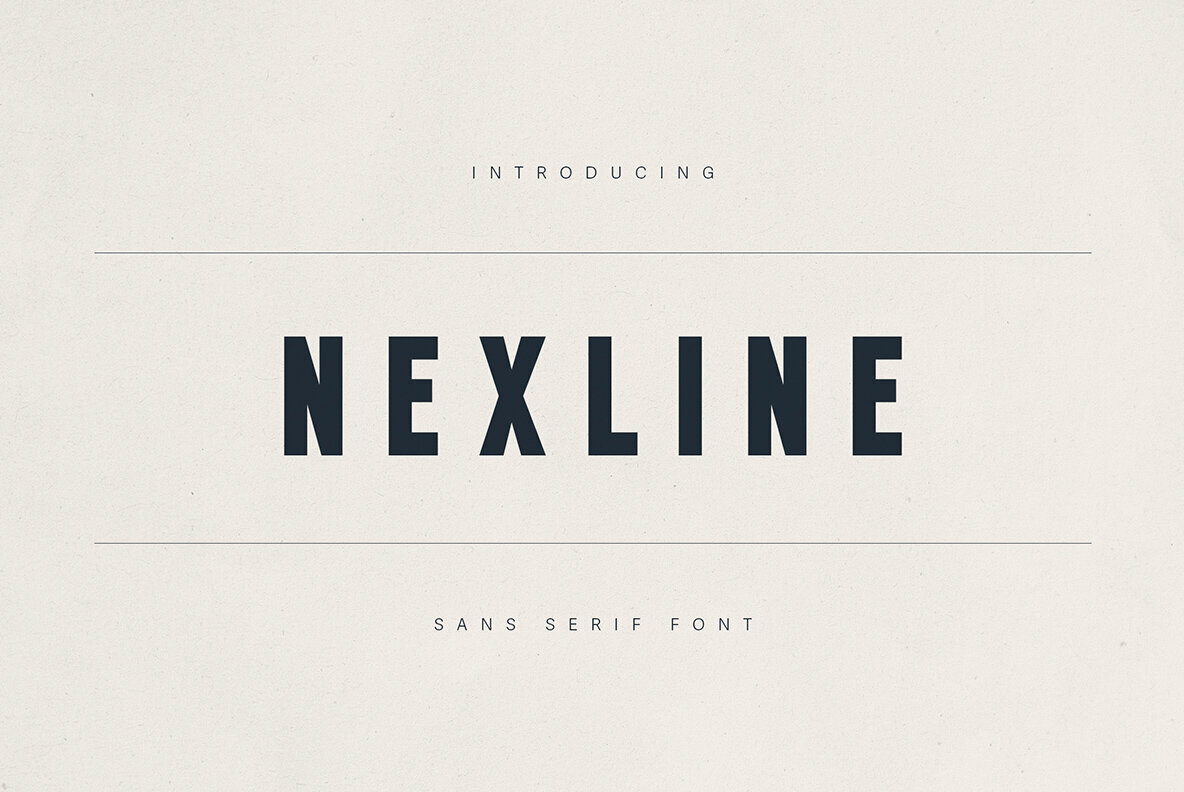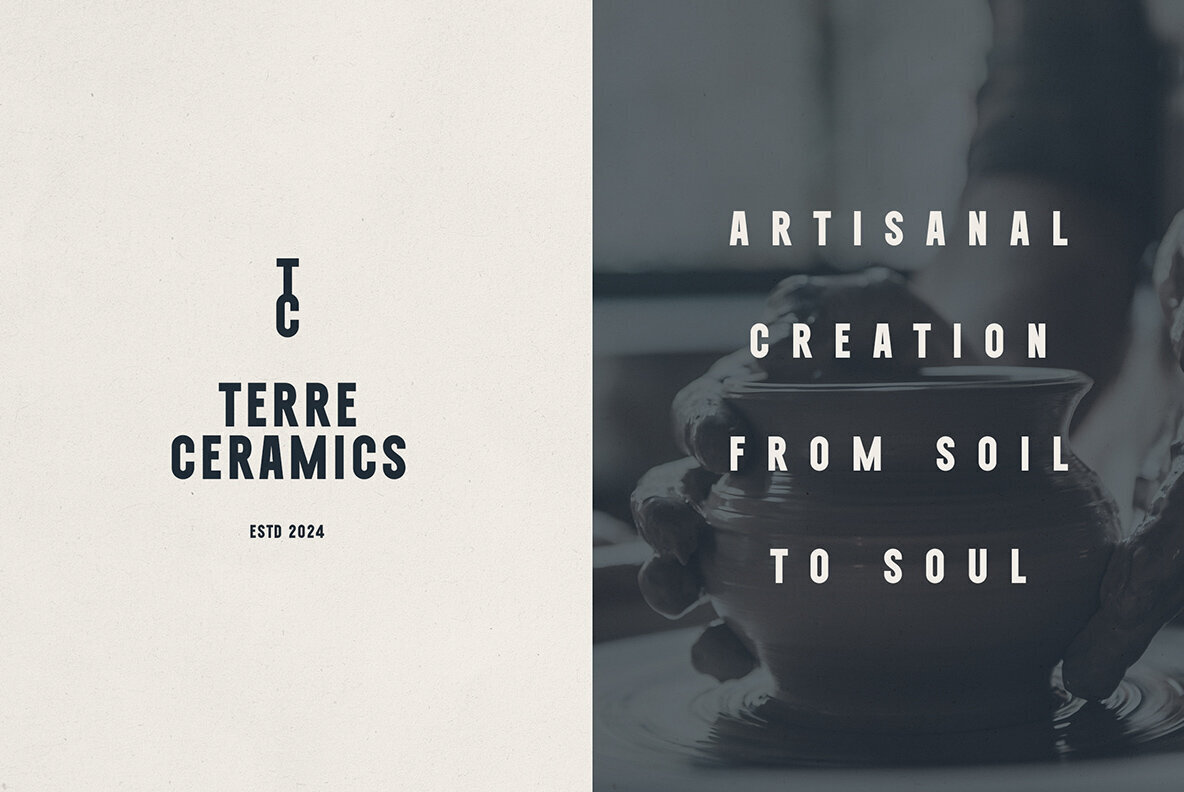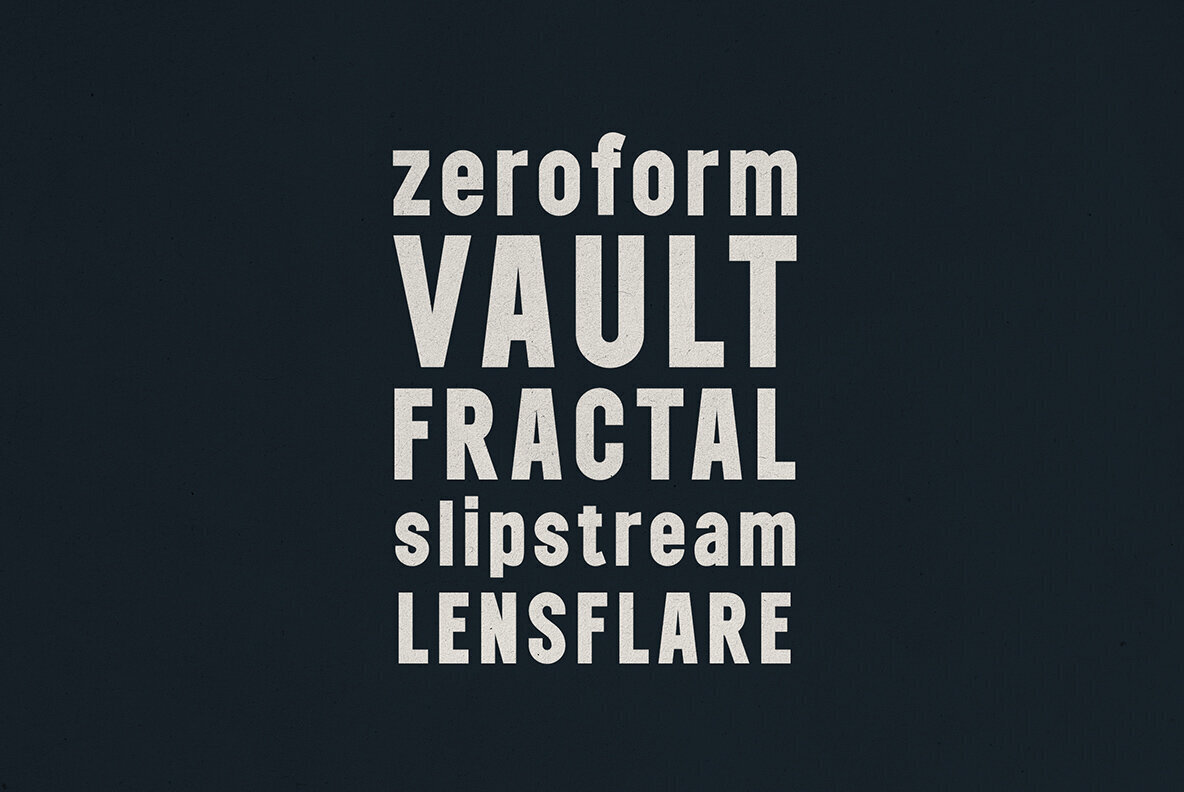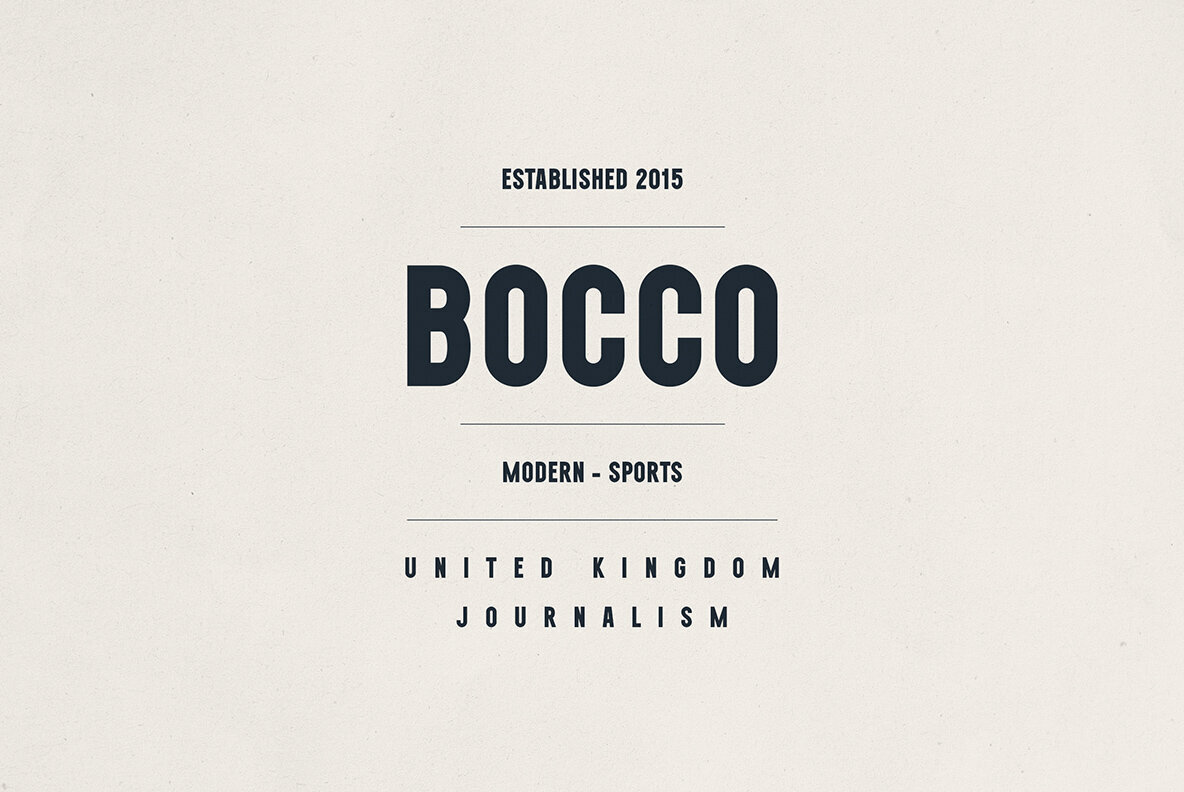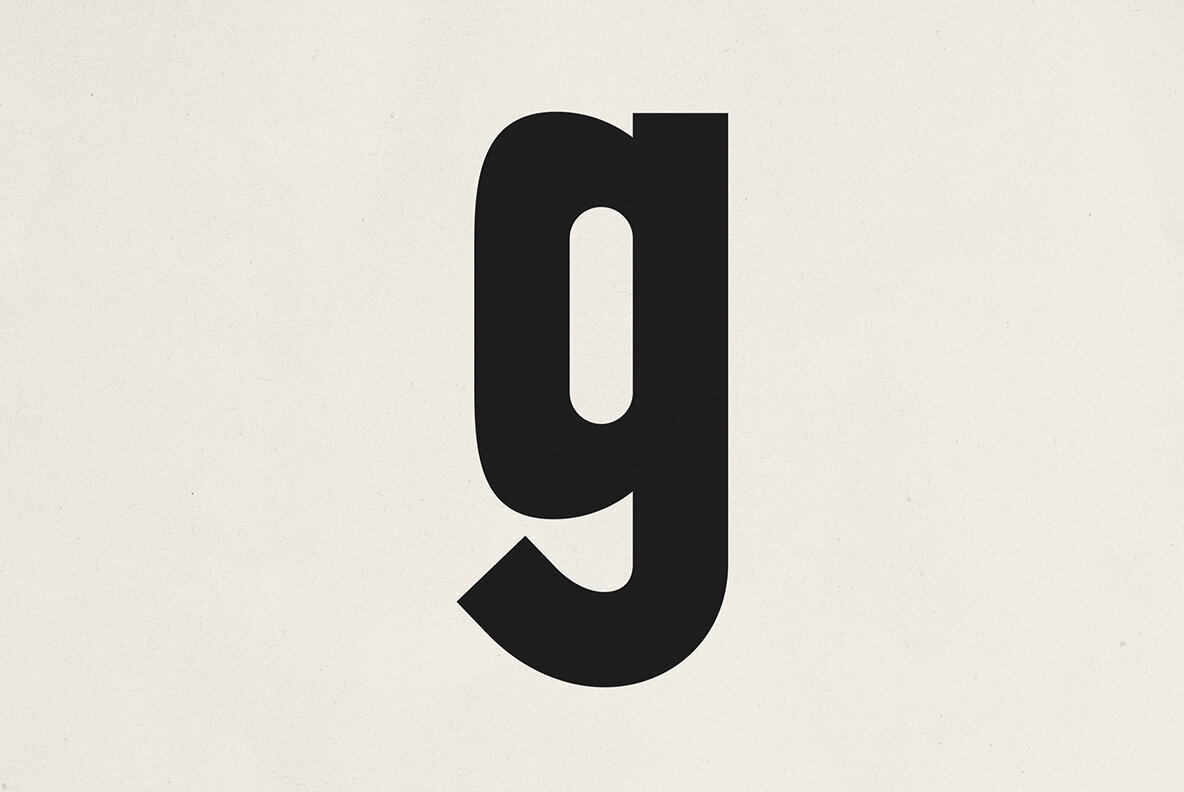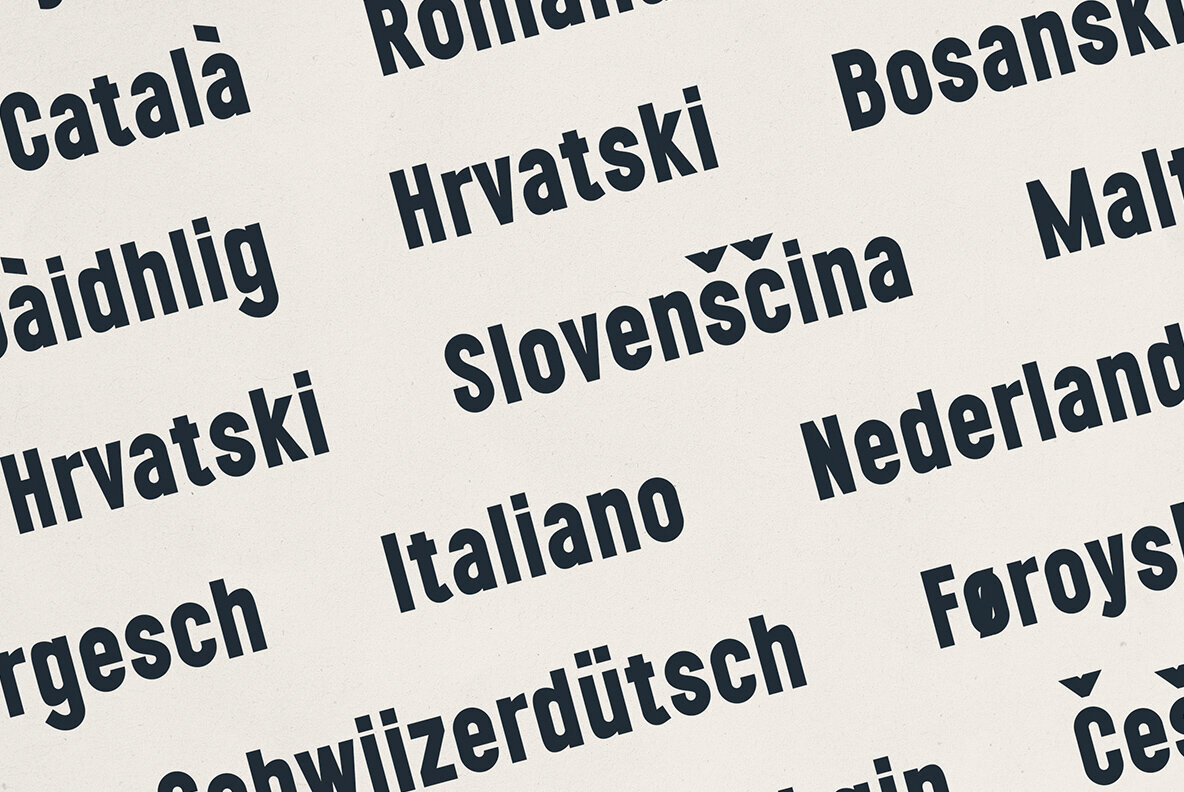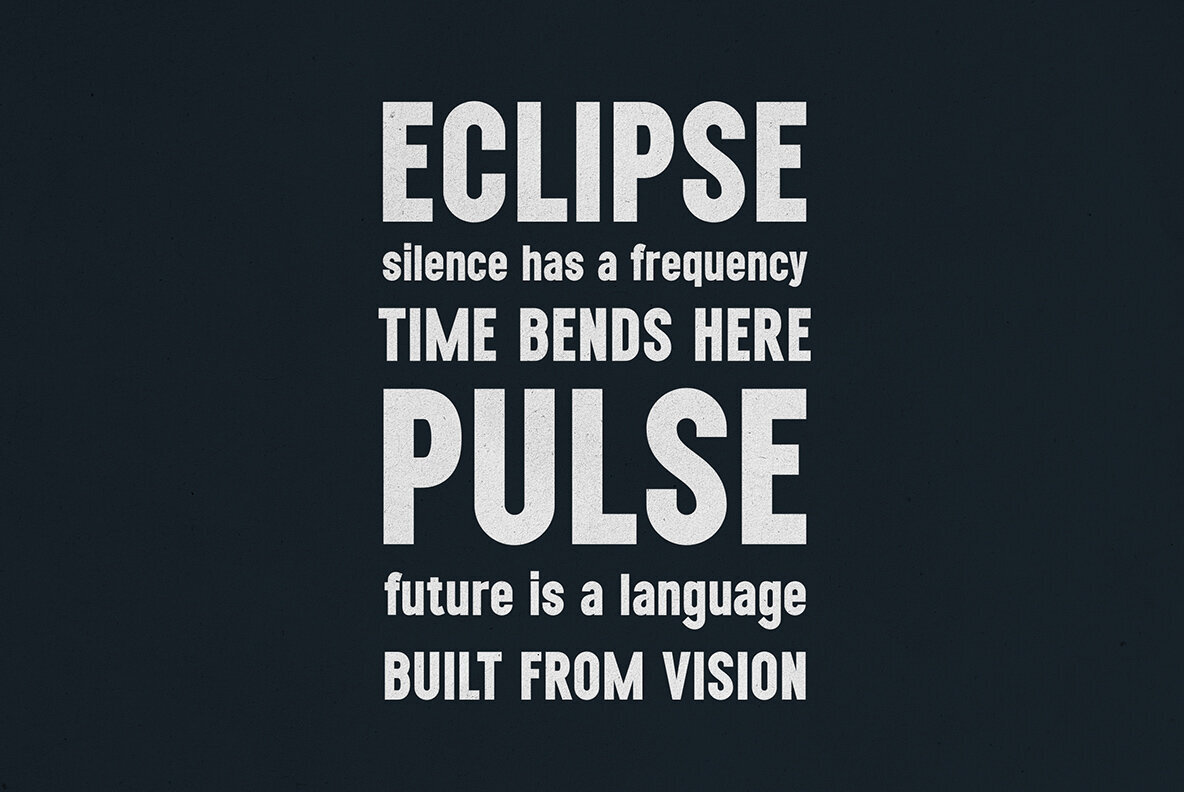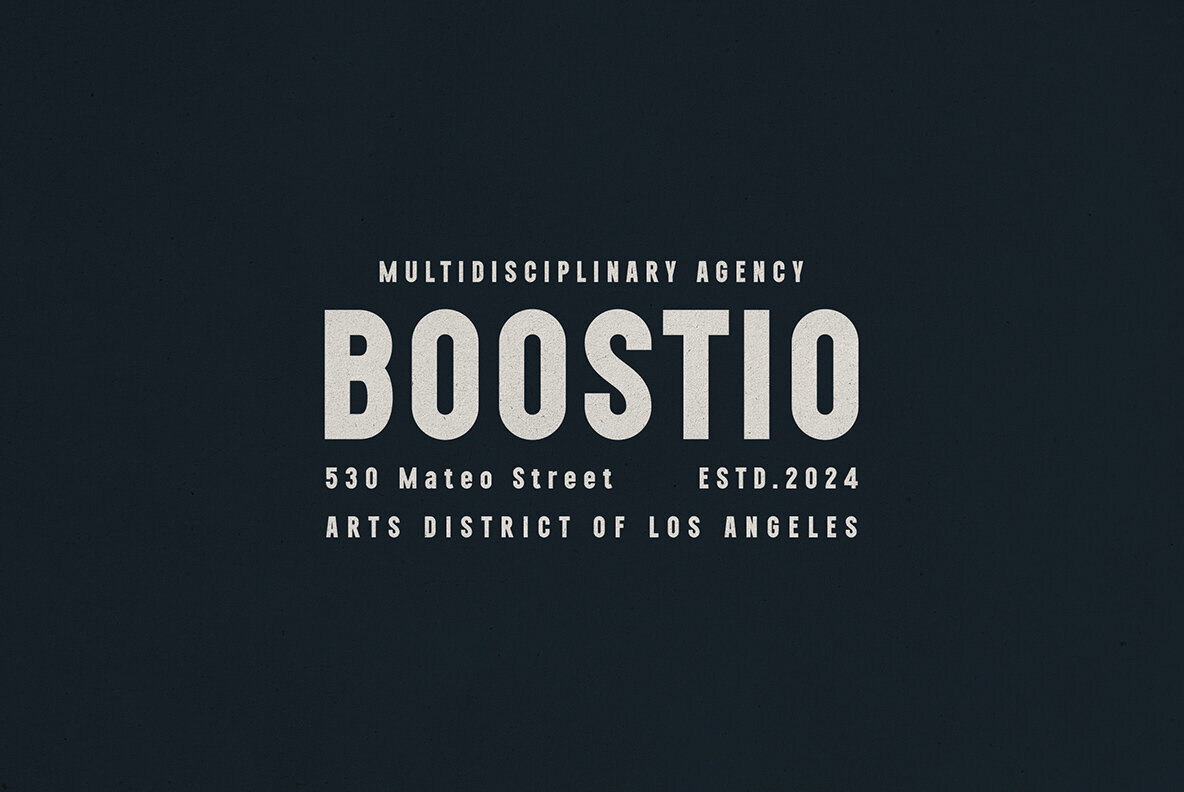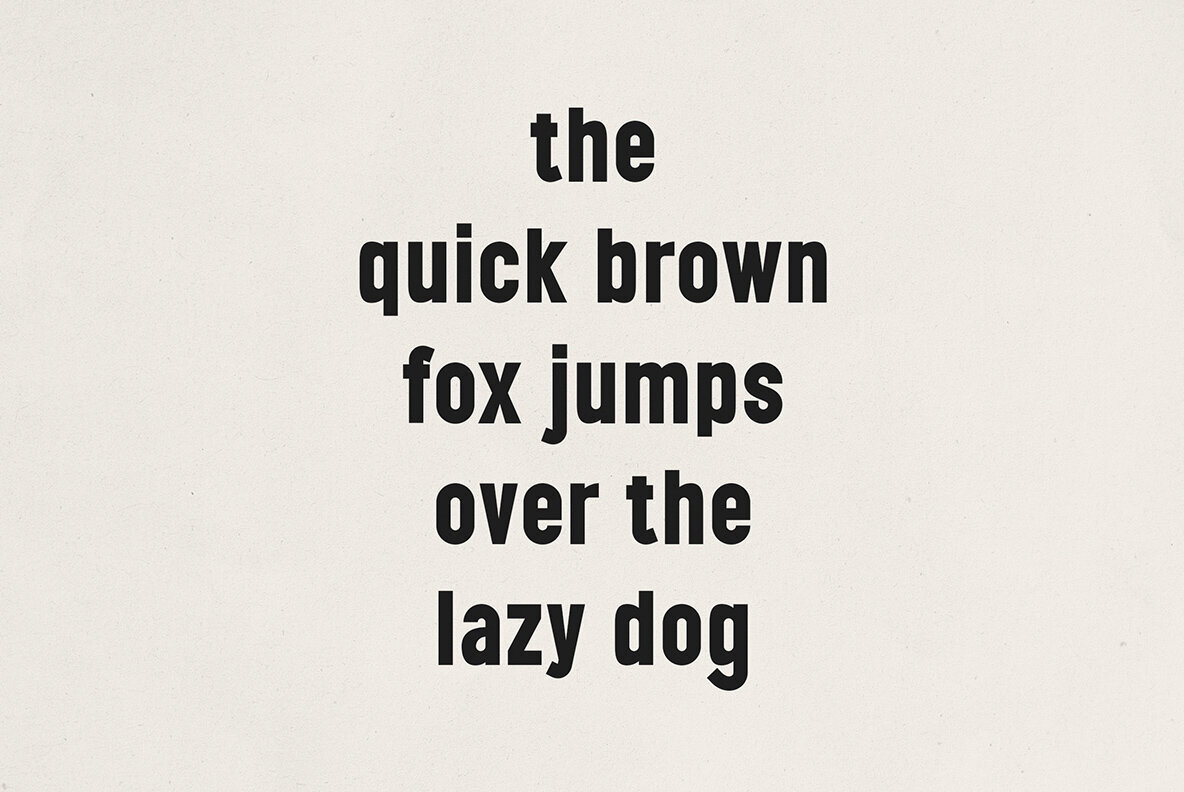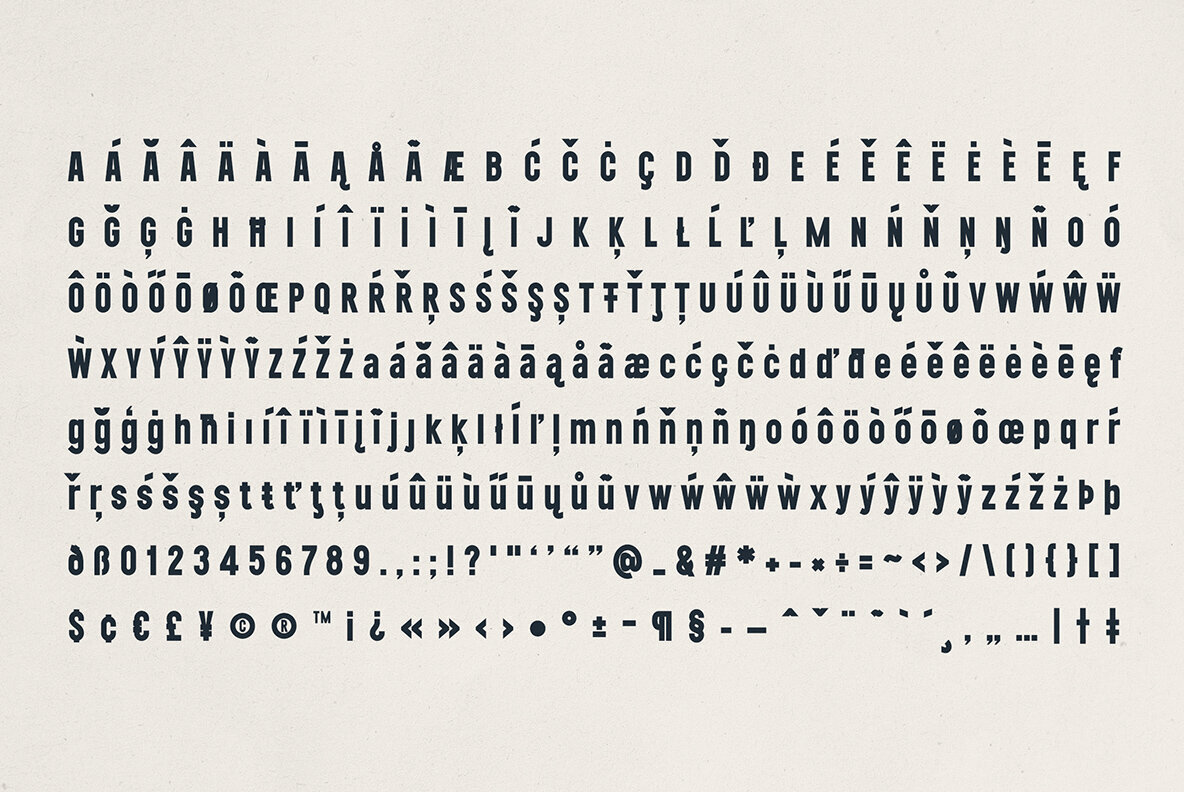
Nexline Font
Nexline
Make an indelible impression with Nexline, a bold sans serif typeface that promises maximum impact and unmatched readability. Its robust geometric framework and sleek, condensed letterforms make it a standout choice for dynamic headlines, distinctive logos, engaging posters, and cohesive editorial layouts. Nexline seamlessly marries vintage charm with modern simplicity, bestowing any design project with compelling visual energy. Designed to cater to a diverse array of creative needs—from fashion brands and ceramic studios to lifestyle products and beyond—Nexline comes armed with both uppercase and lowercase letters, and supports over 80 languages for global appeal. Perfect for everything from artisanal packaging to urban event posters and sophisticated corporate branding, Nexline consistently delivers a polished, contemporary edge. Supports over 80 languages including Afrikaans, Polish, Turkish, and Zulu, ensuring broad-ranging accessibility across global markets.Nexline: Bold Sans Serif Font for Modern Design